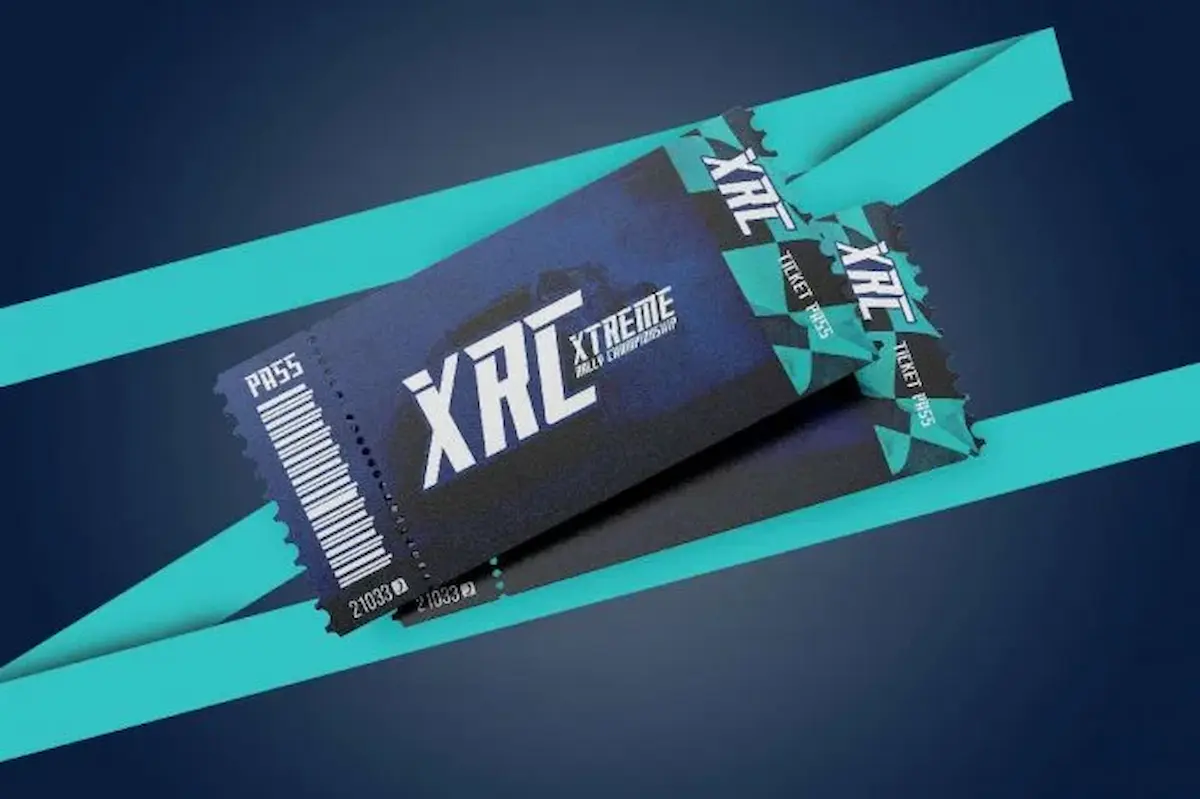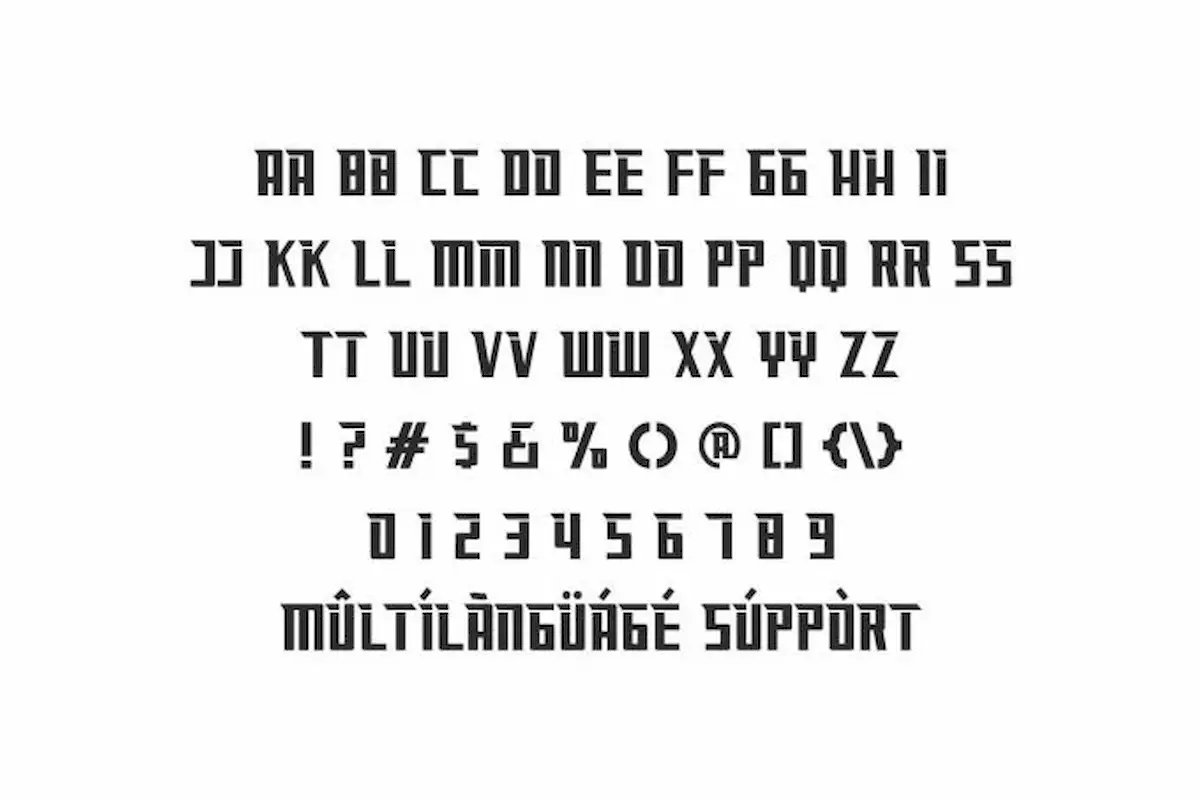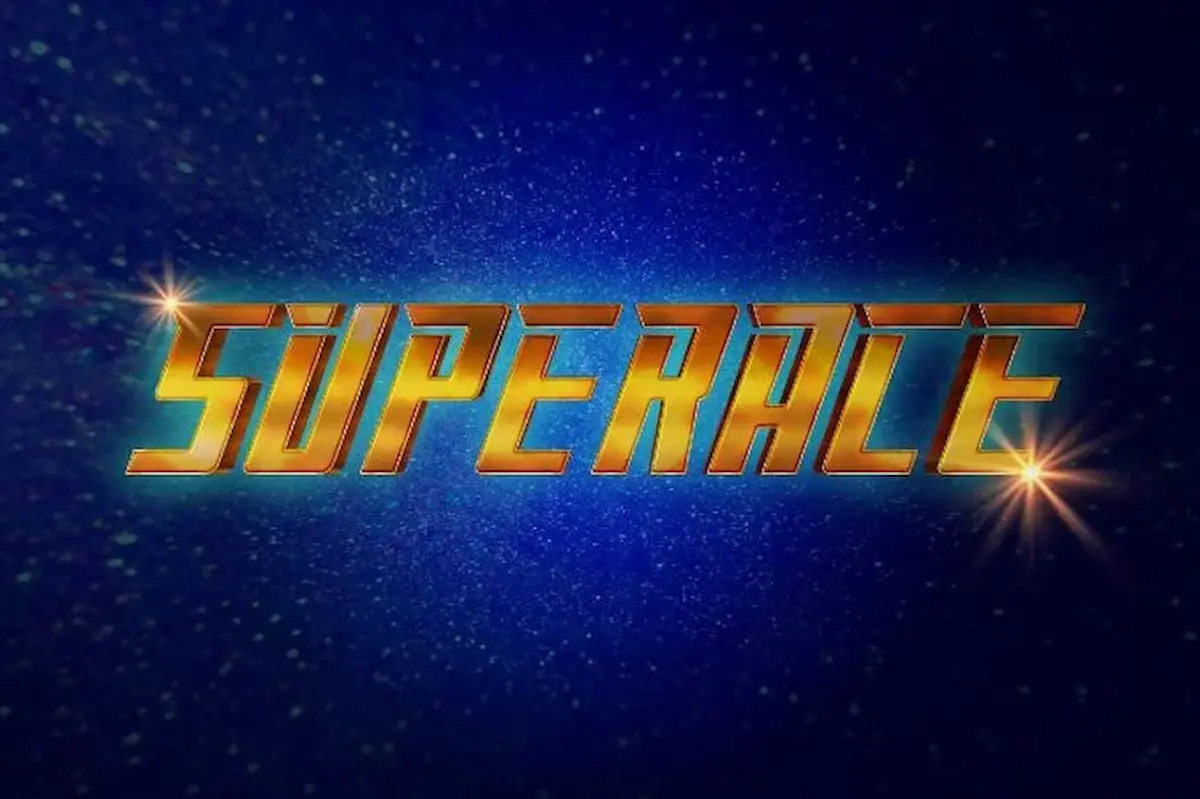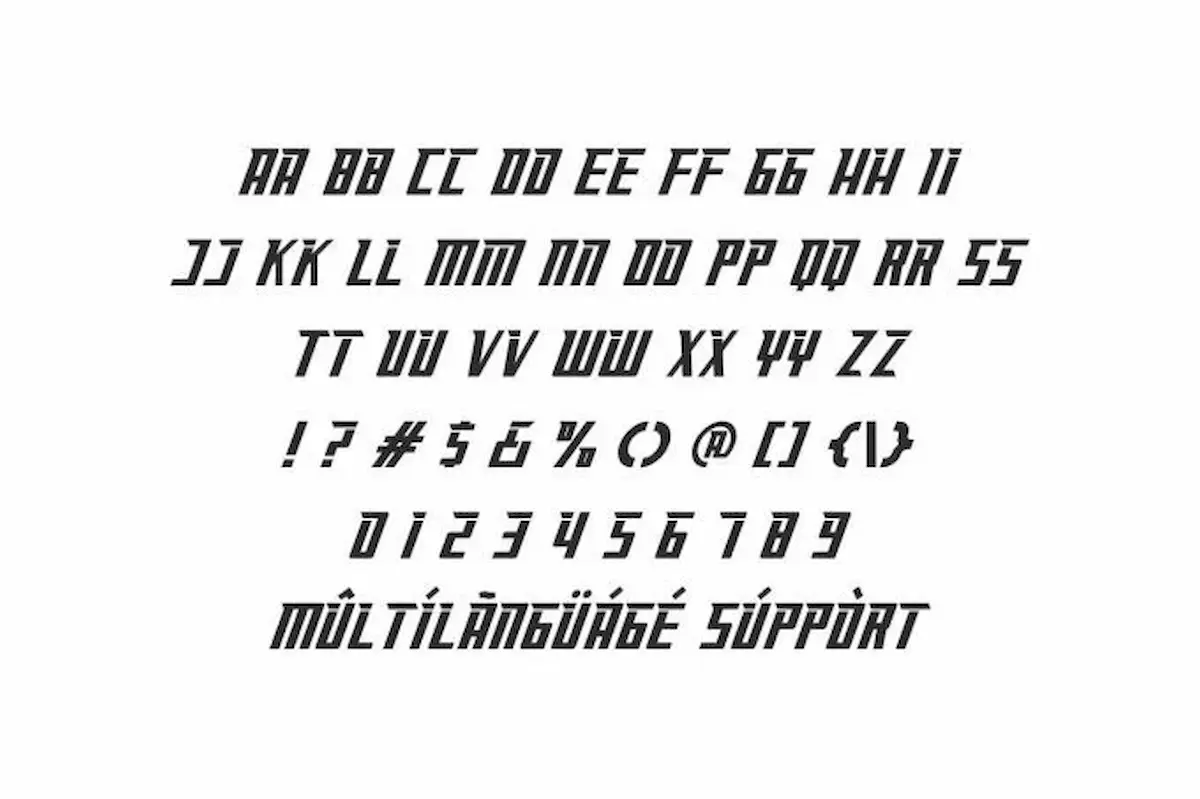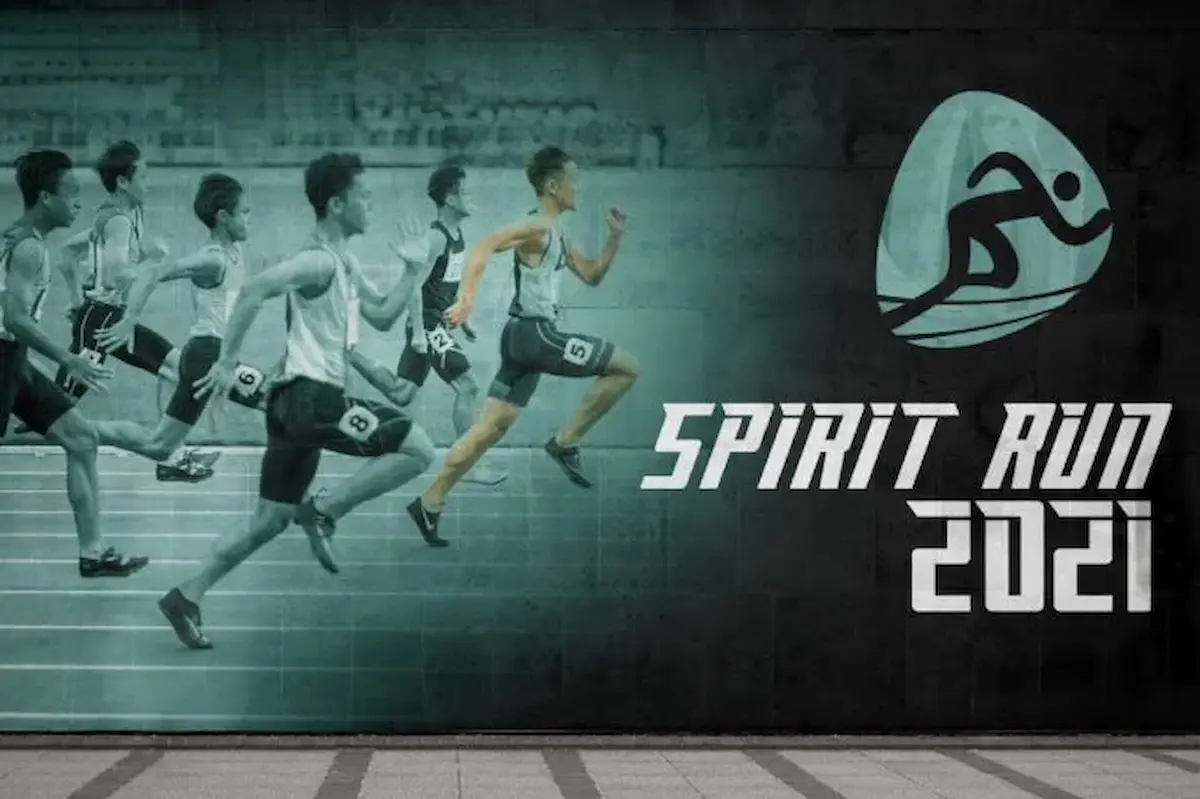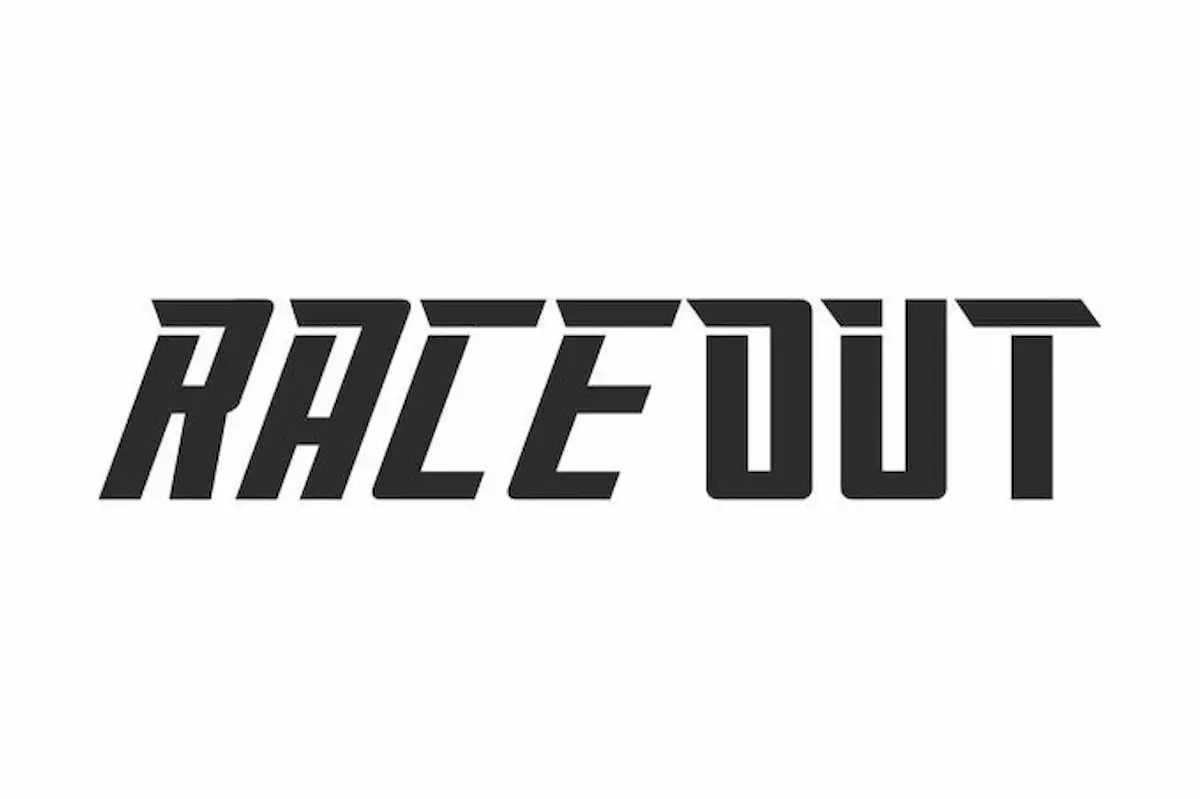
Raceout Font is a display font racing themed by NihStudio. It will great for fashion, games, sport etc.
Raceout Font is a display sans serif font with sporty style, try the font by typing your own text below. Please note that the test font below is a demo file, so some specimens/characters will not show up.
Raceout Font comes with OTF File, TTF File, Woff File and we’ll also include Read-me help file txt. ALL CAPS with different sizes between uppercase and lowercase letters. This font has two different styles: Regular and Italic. This font will be great for any projects (require extended license) including: headline, logo branding, print media, products packaging, screen printing, signage, webpage etc. It will be great for many business industries: automotive, fashion, games, music, sport, techno etc